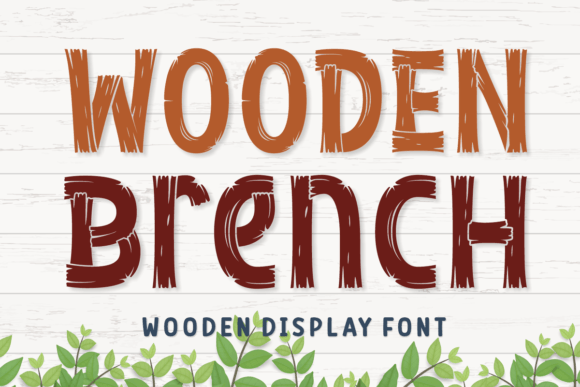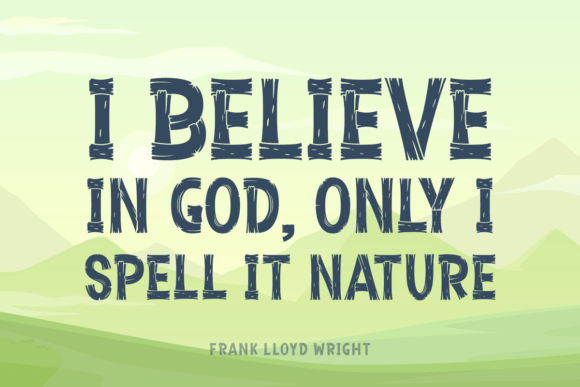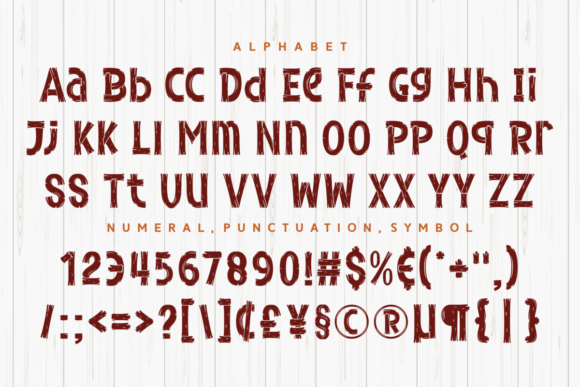
Wooden Brench is a lovely display font with a rustic feel. The wooden texture of the characters will add some personality to your design ideas! Use this nature-inspired typeface for camping t-shirts, outdoor signs, awareness themes, posters, DIY decorations, and many more.
Wooden Brench Font